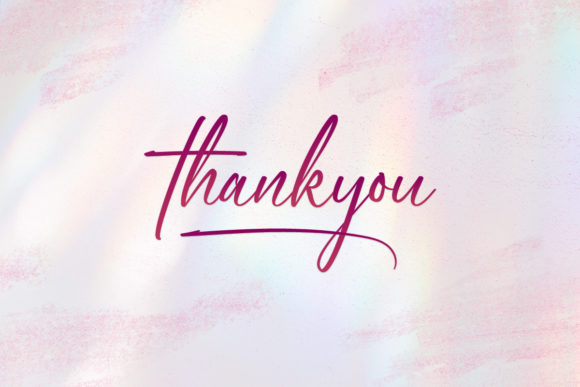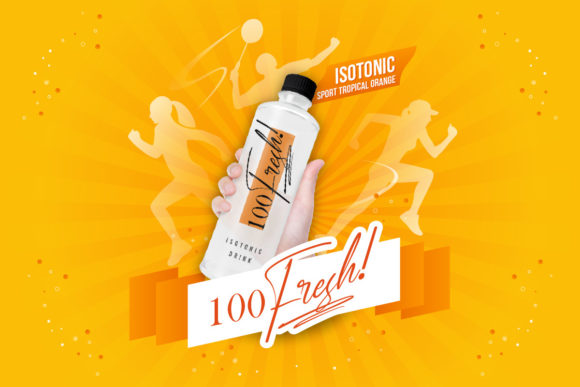
Manchester Park Font
About Manchester Park Font
Manchester Park is a magical script font carefully created with a touch of elegance. This font is PUA encoded which means you can access all of the amazing glyphs and ligatures with ease!